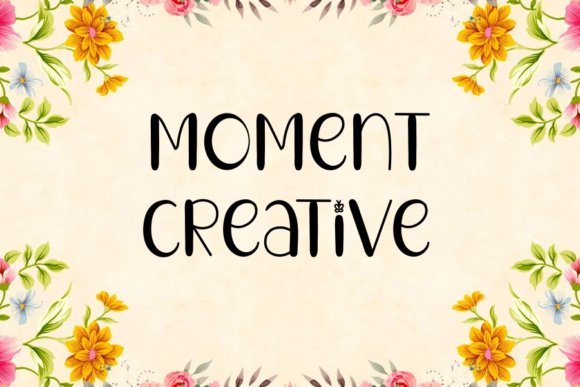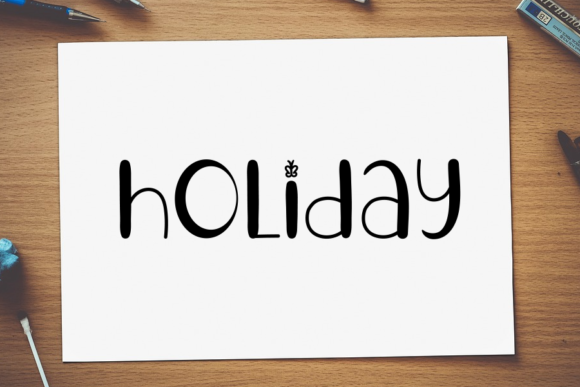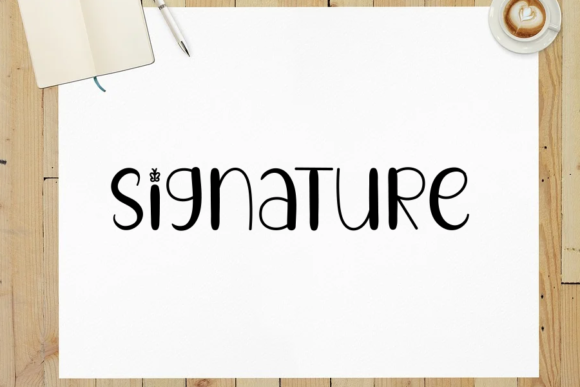
About Shine Forever Font
Shine Forever is a sweet and friendly handwritten font. Its natural and unique style makes it incredibly fitting to a large pool of designs. The only limit is your imagination!